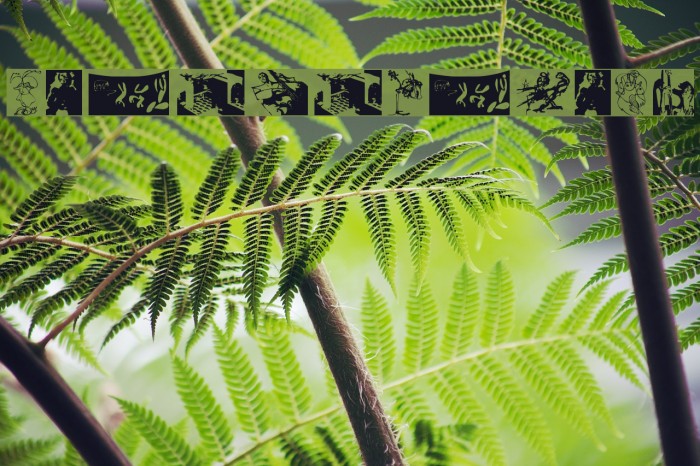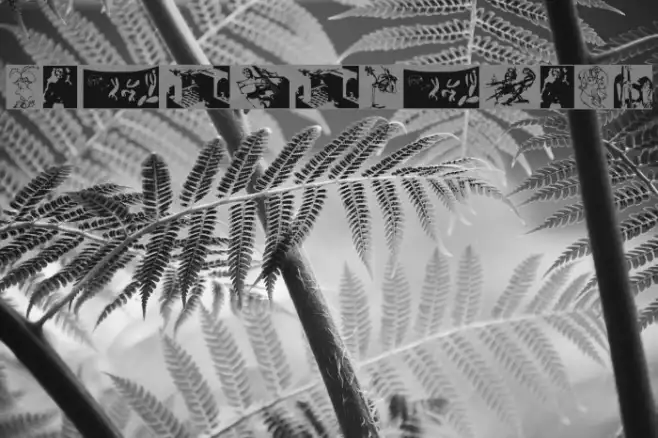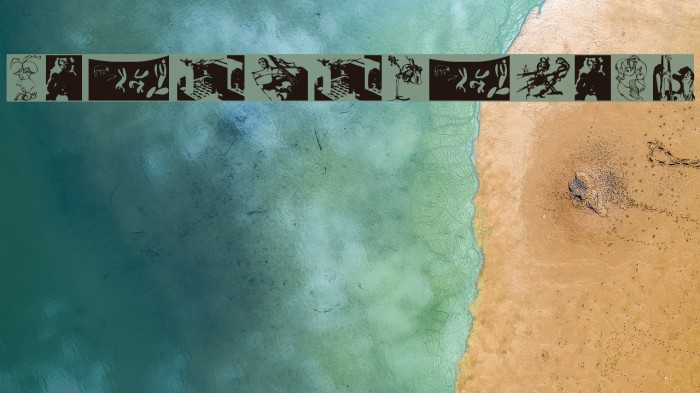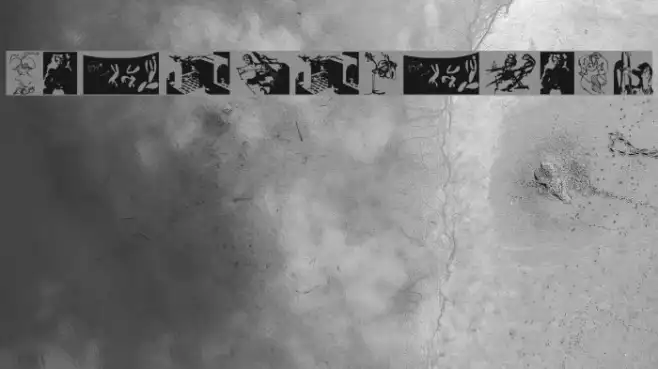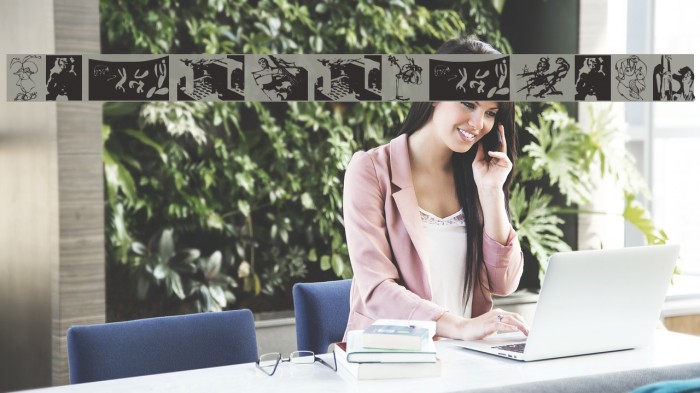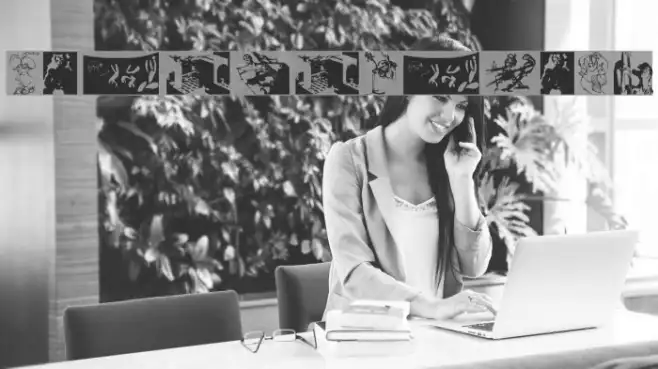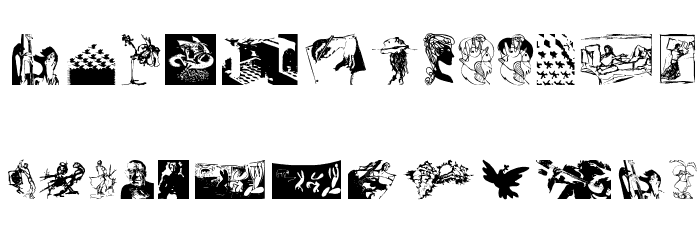
ArteVectoria Font
ArteVectoria Description
This is not a traditional font but rather a collection of artistic vector illustrations. Each character is represented by a unique and intricate design, depicting various scenes and figures. The style is highly decorative, with a strong emphasis on artistic expression and creativity. The illustrations are detailed and varied, showcasing a range of subjects from abstract designs to human figures. This collection is more suited for artistic projects rather than textual content, as it does not follow the conventional structure of a typeface.
| Use Case | Artistic projects, decorative purposes. |
| Proposed Projects | Ideal for creative projects such as posters, art prints, and unique branding materials where artistic expression is key. |